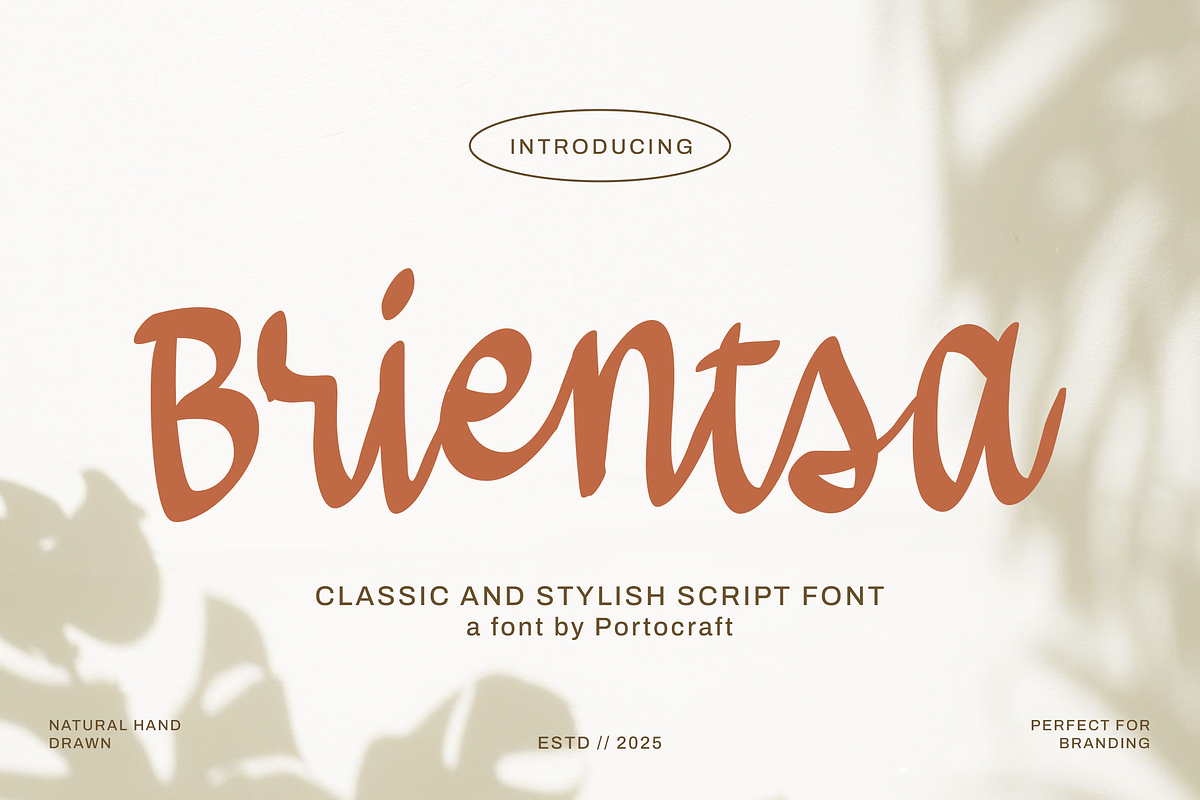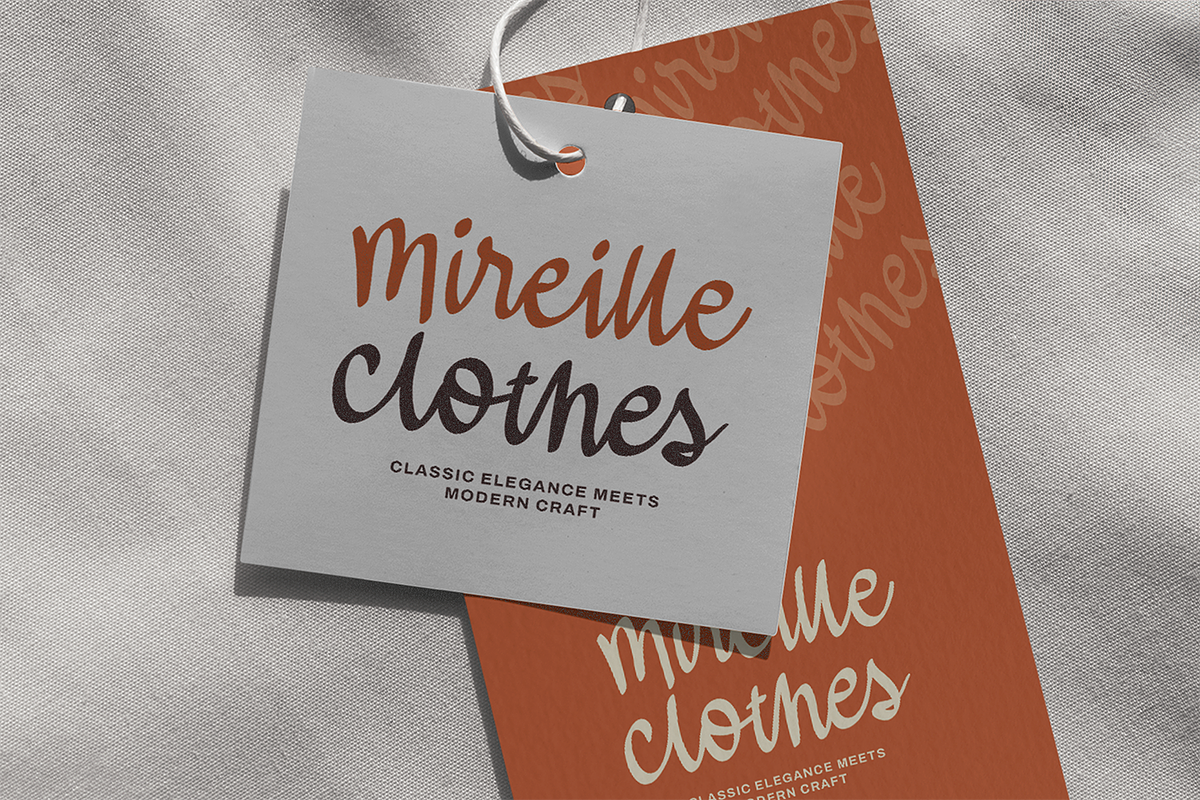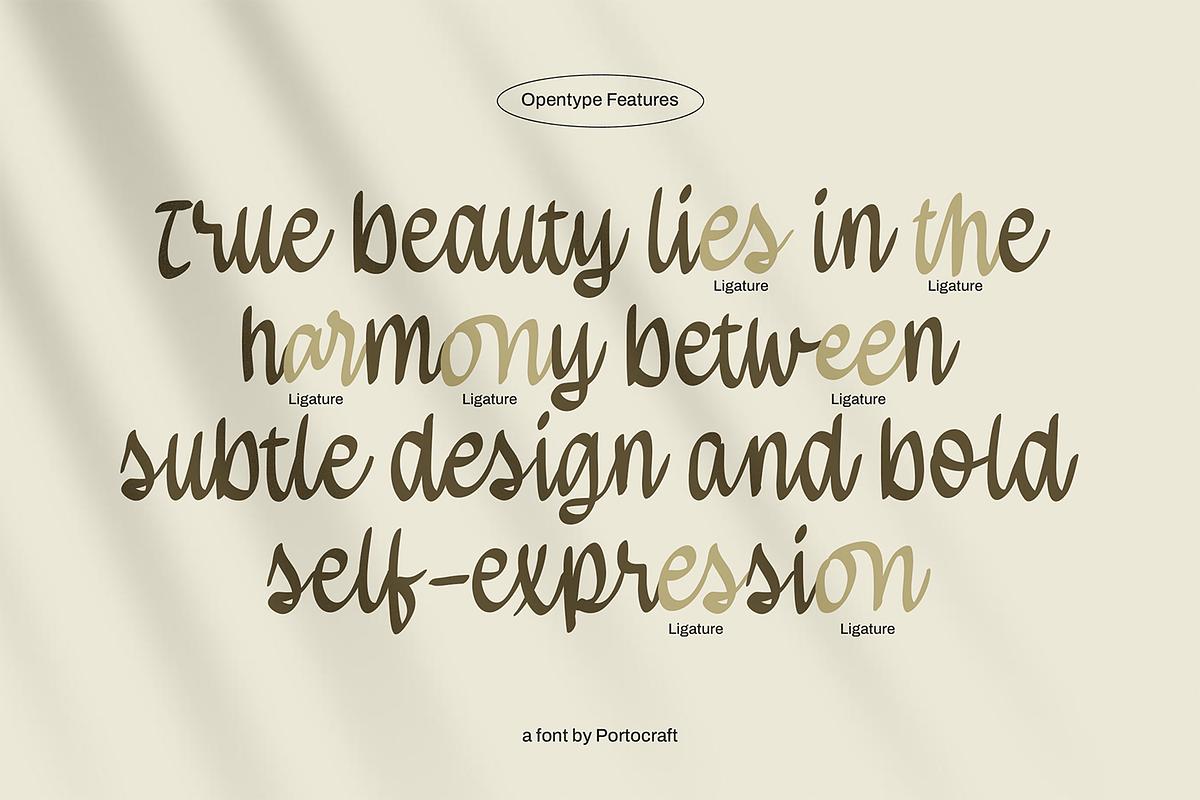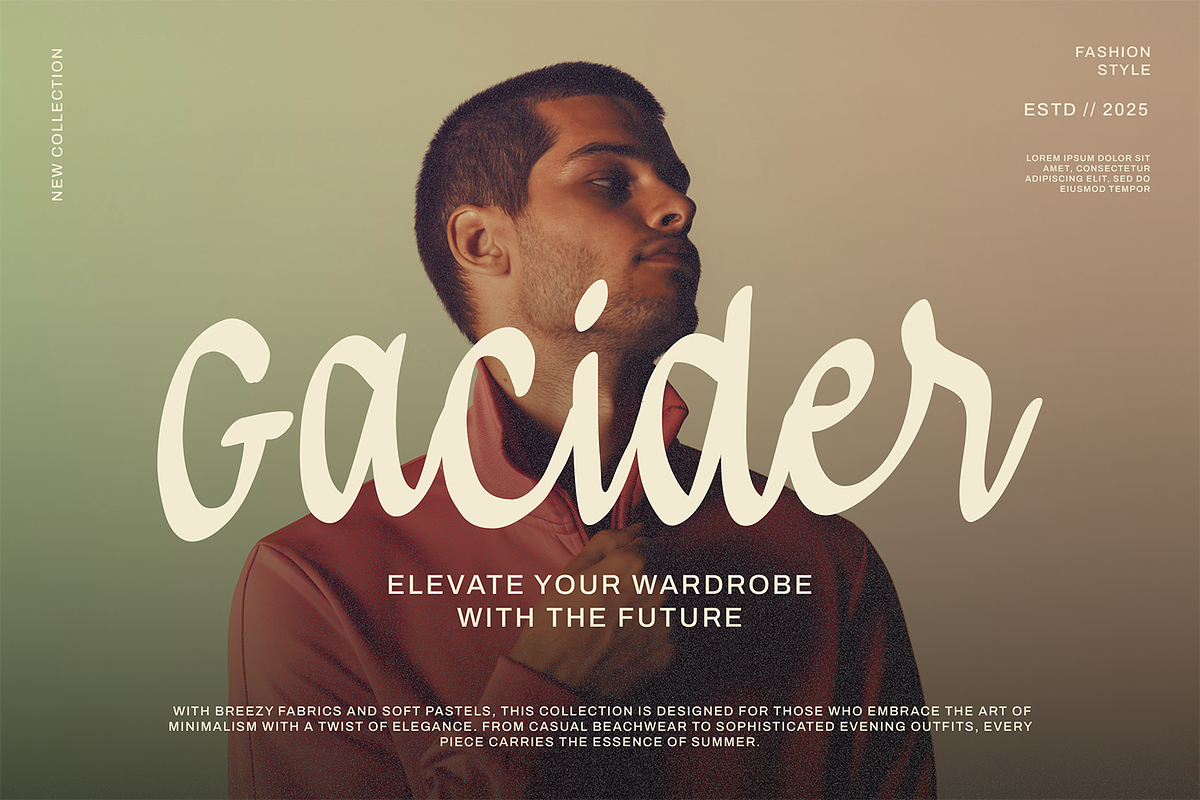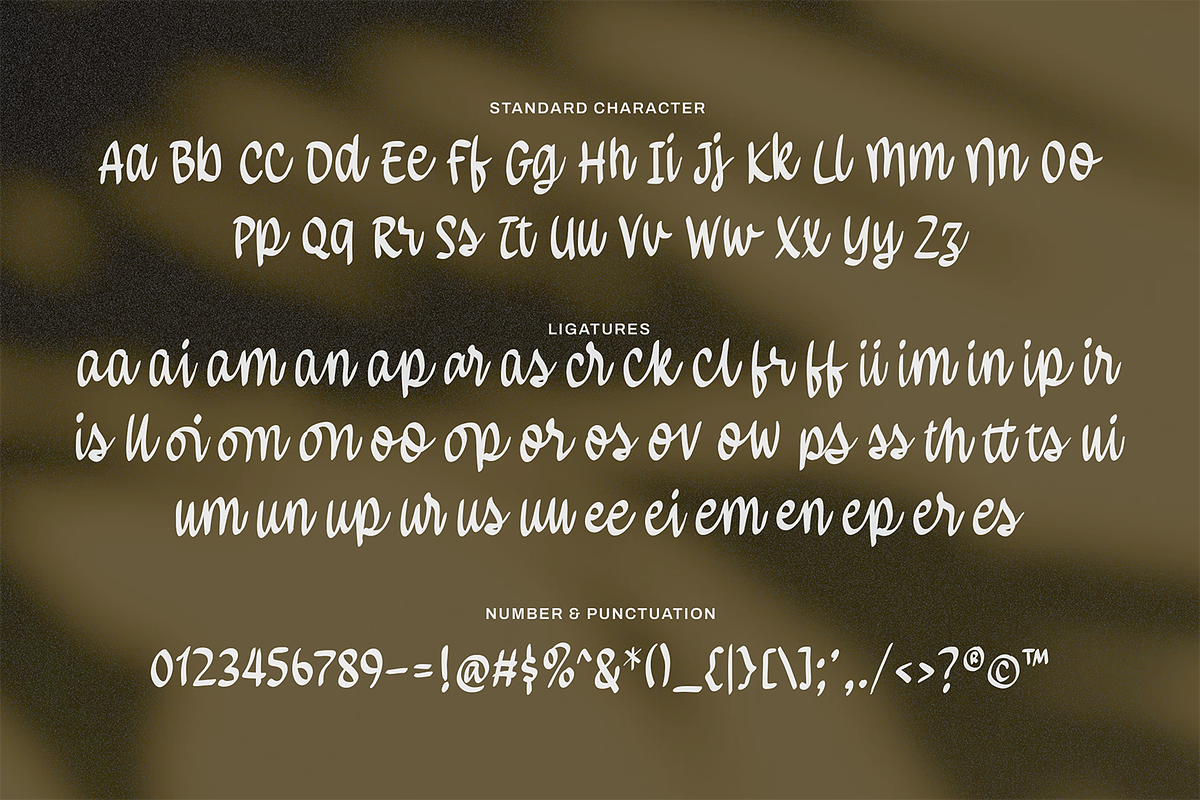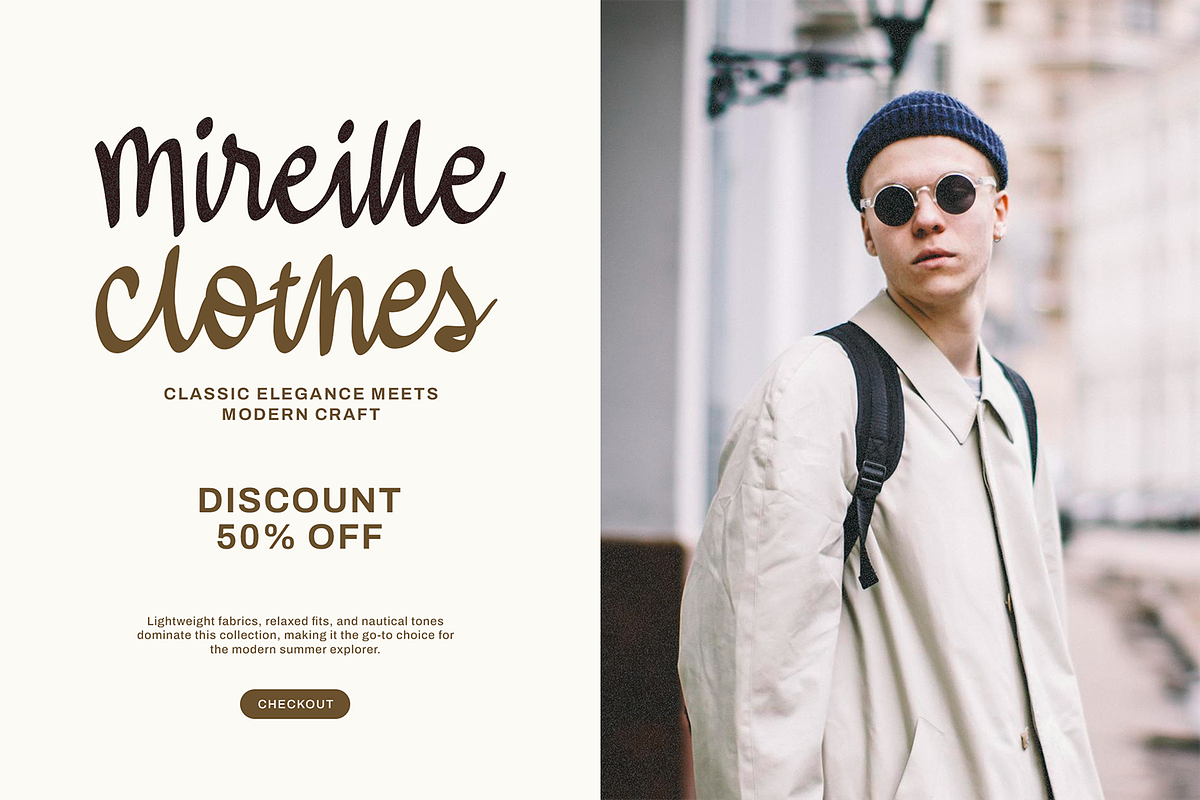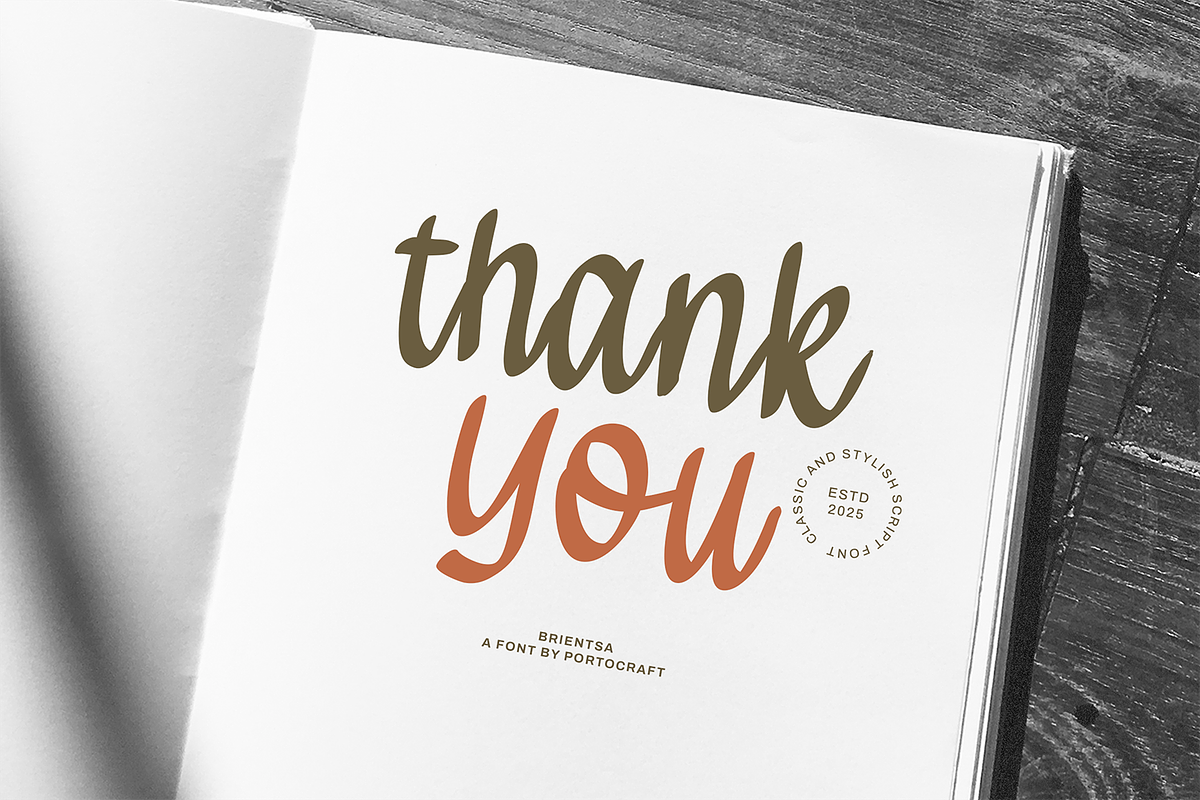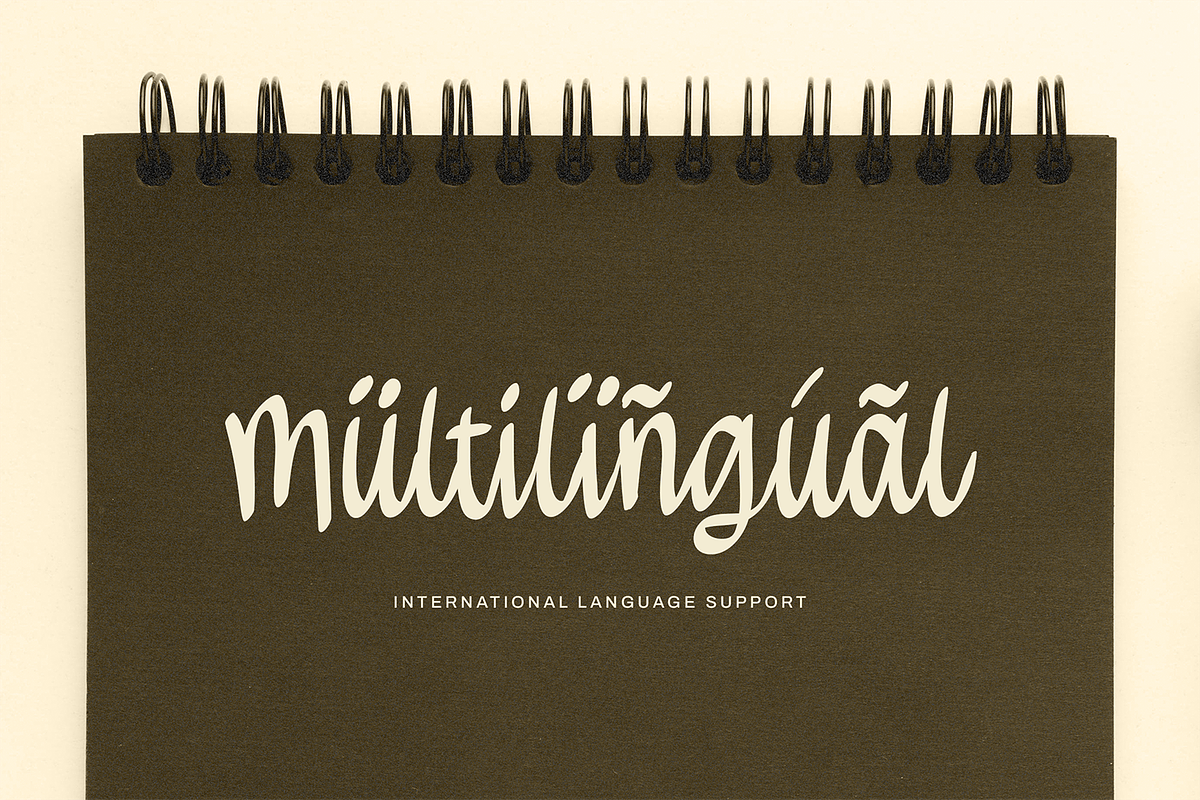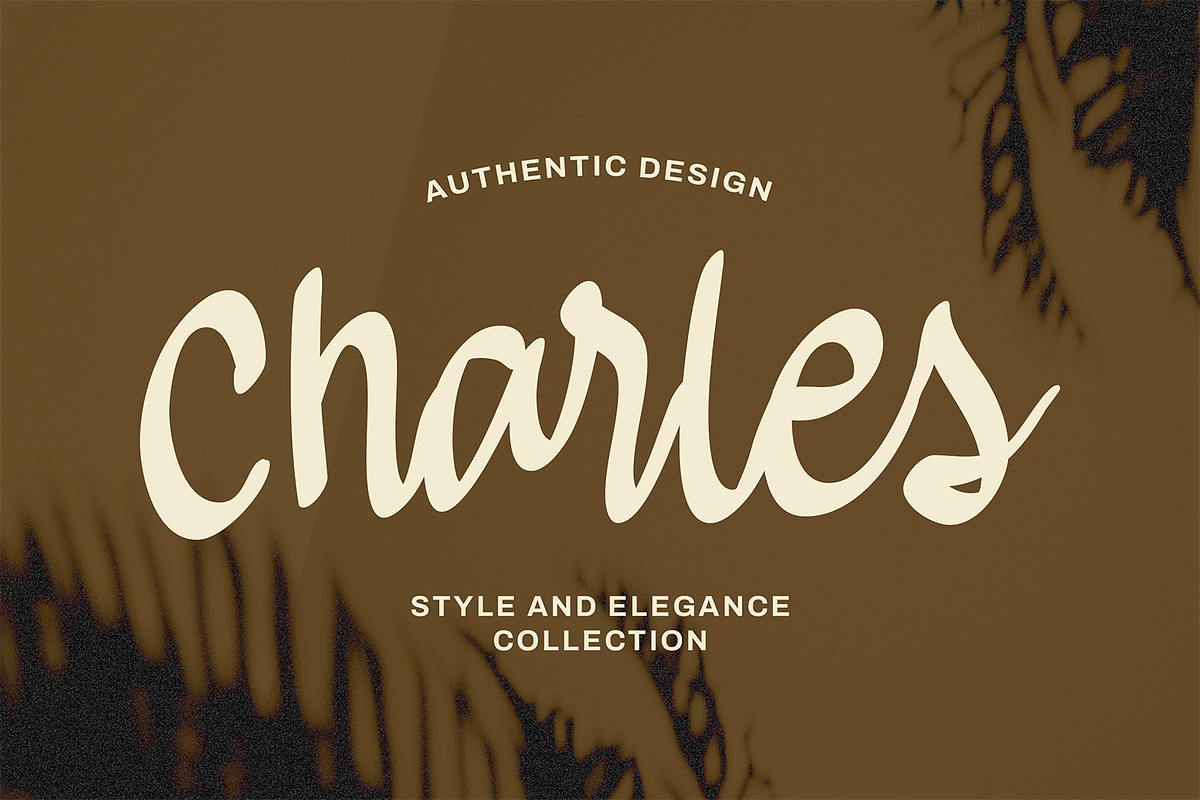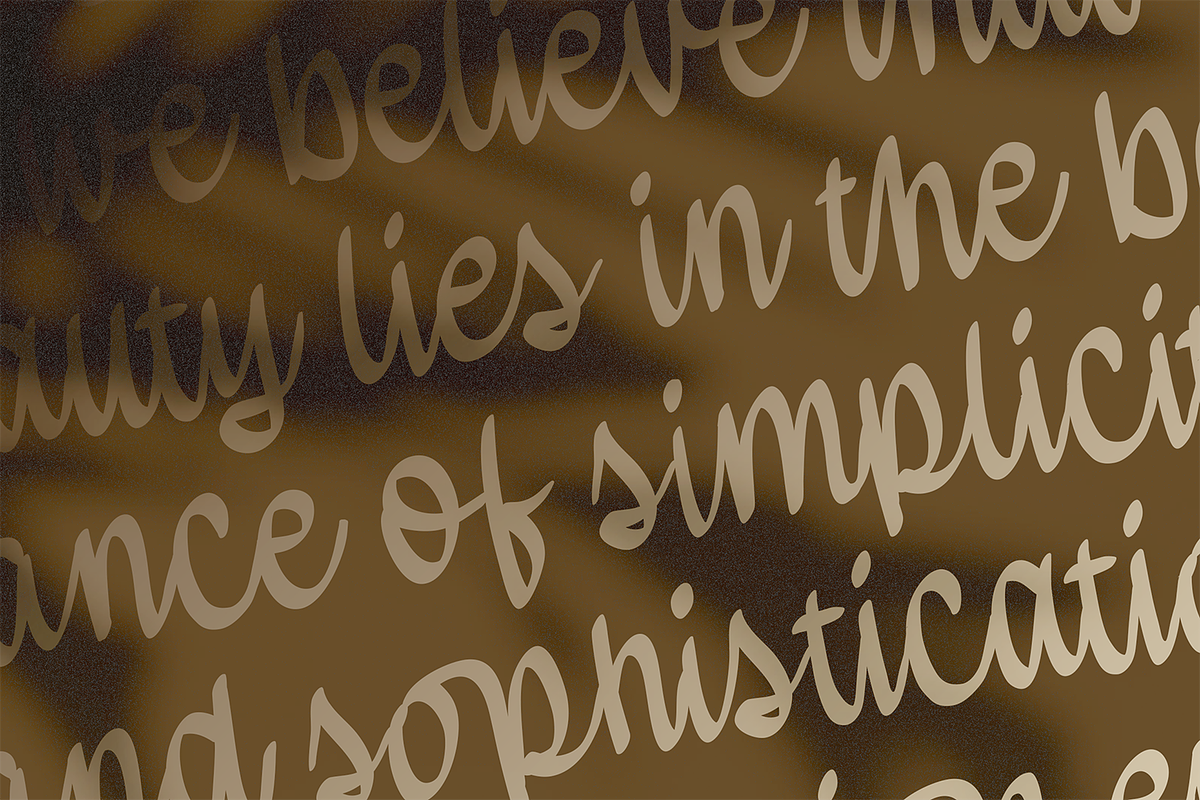
Brientsa Classic Script
Brientsa is a classic and stylish script font with a natural hand-drawn touch, designed to bring a warm yet modern feel to your projects. Perfect for branding, logos, product packaging, wedding invitations, social media designs, and editorial headlines.
Its smooth curves and well-balanced letterforms create a charming look, while the subtle handcrafted details give it an authentic and personal vibe. Brientsa comes with clean kerning and consistent shapes, making it easy to achieve professional-looking designs with an artistic twist.
- Complete uppercase & lowercase letters
- Elegant, natural hand-drawn script style
Add warmth and timeless elegance to your design work with Brientsa — a perfect blend of beauty and readability.